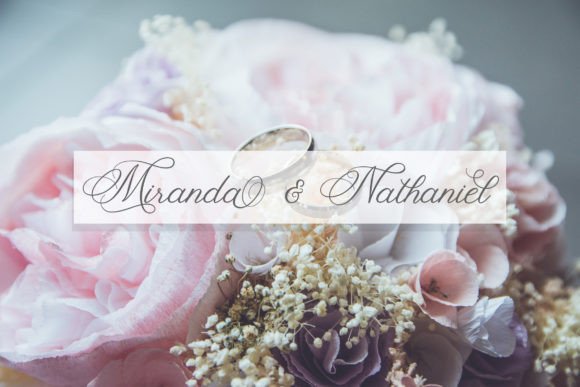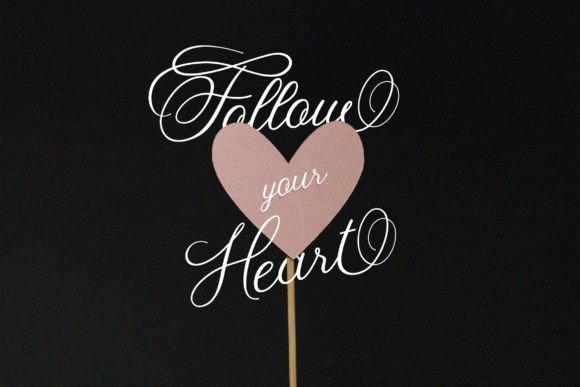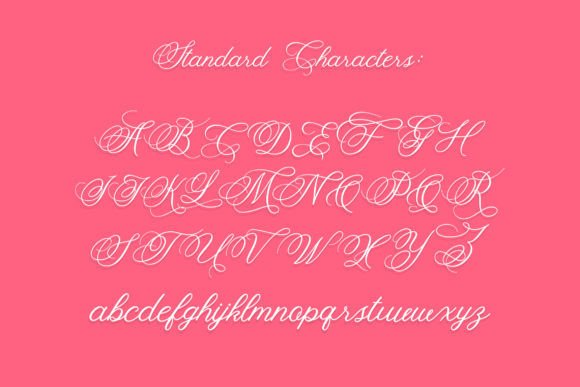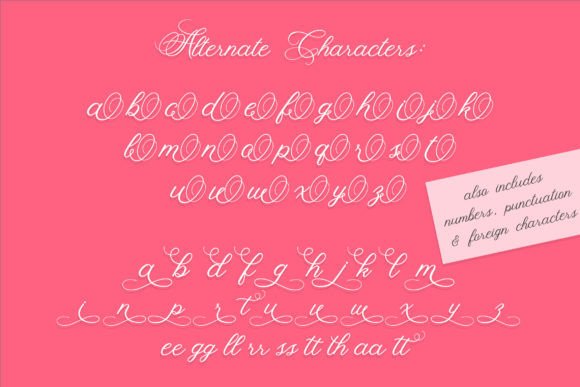
The Fancy Script Font: Elevate Your Designs with Elegance
I’ll never forget the time I was working on a wedding invitation project, and my client asked me to create a custom design that exuded luxury and sophistication. I spent hours scouring font libraries, but nothing seemed quite right. That was until I stumbled upon the Fancy Script Font. Its elegant, handwritten style and flowing curves instantly captured the essence of what I was trying to achieve. In this article, I’ll share my experience with this beautiful font, its features, and how to make the most of it in your designs.
What I Love About Fancy Script Font
The Fancy Script Font has quickly become one of my go-to fonts for projects that require a touch of elegance. Here are some things I love about it:
- ✨ Sophisticated and elegant design: The font’s handwritten style is both refined and beautiful, making it perfect for high-end projects.
- ✅ PUA encoded: This means you can easily access all the amazing glyphs and ligatures, giving you endless creative possibilities.
- 🎨 Versatile: Use it for advertisements, invitations, branding, and more – the Fancy Script Font adapts to any design need.
Honest Review: A Few Quirks
No font is perfect, and the Fancy Script Font is no exception. Here are a few things to keep in mind:
- ⚠️ Legibility at small sizes: Like many script fonts, it may become difficult to read at very small sizes. Use it at larger sizes or for headlines and titles.
- 🤔 Pairing with other fonts: As with any decorative font, it’s essential to pair it thoughtfully with other fonts to avoid visual overload. Stick to simple, clean fonts for body text.
A Brief Backstory: The Inspiration Behind Fancy Script Font
The Fancy Script Font was inspired by traditional calligraphy and the flowing scripts of 18th-century European art. Its designer aimed to capture the elegance and sophistication of these historical scripts while making them accessible for modern design use. The result is a font that’s both timeless and versatile.
- Q: Is the Fancy Script Font suitable for body text?
- A: No, due to its script nature and intricate details, it’s best used for headlines, titles, and short paragraphs.
- Q: Does the Fancy Script Font include ligatures?
- A: Yes, the font includes ligatures and can be accessed through OpenType features in compatible design software.
- Q: Is the Fancy Script Font available in different weights or styles?
- A: The standard version of the font comes in a single weight, but some font packages may offer variations or bold versions.